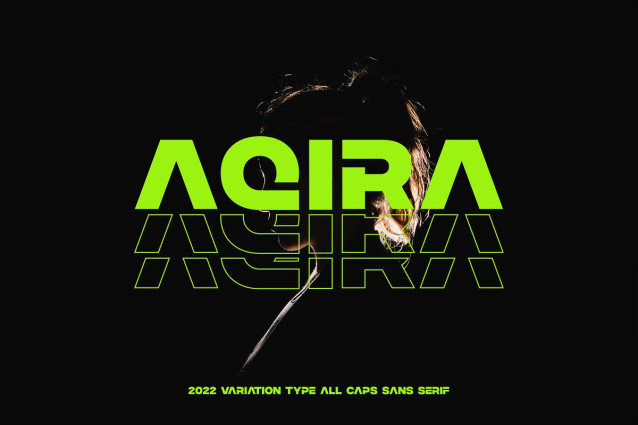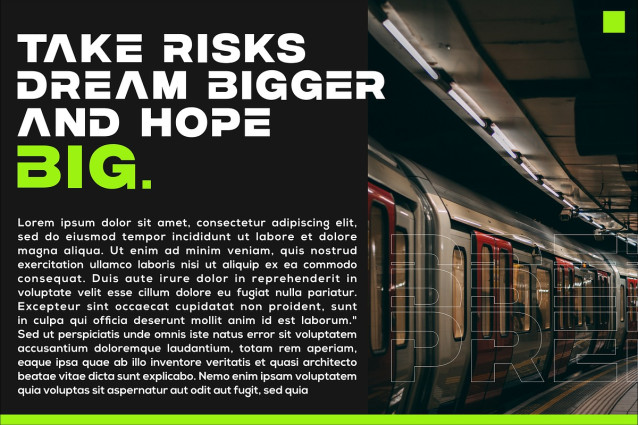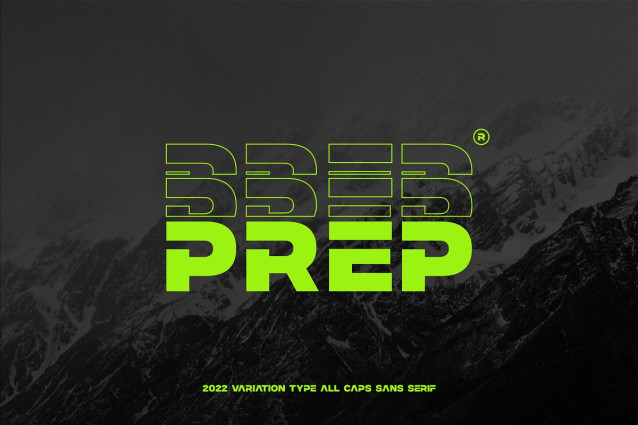
Prep Sans Font
Prep Sans Font – modern font with edge, geometric corners, perfect for many project: fashion, magazines, logo, branding, photography, quotes, blog header, poster, advertisements, postcard, book, websites, etc.